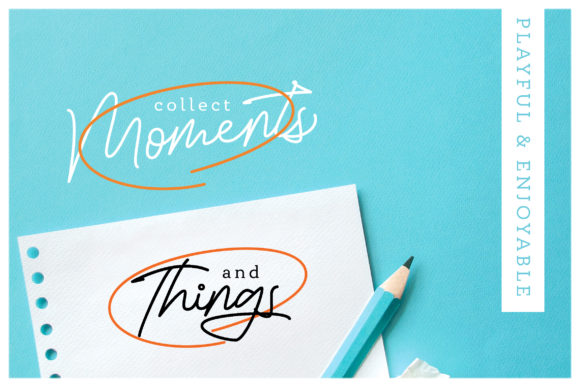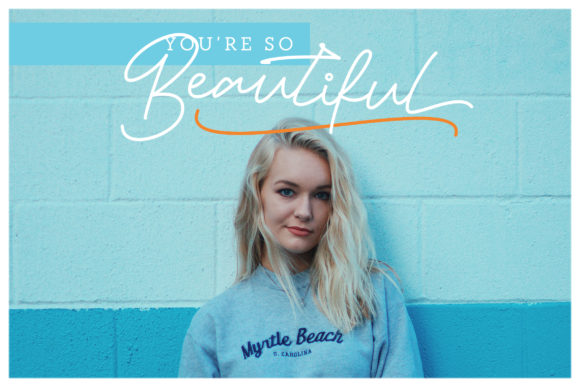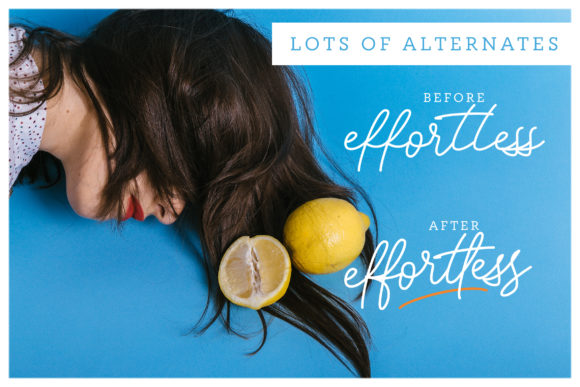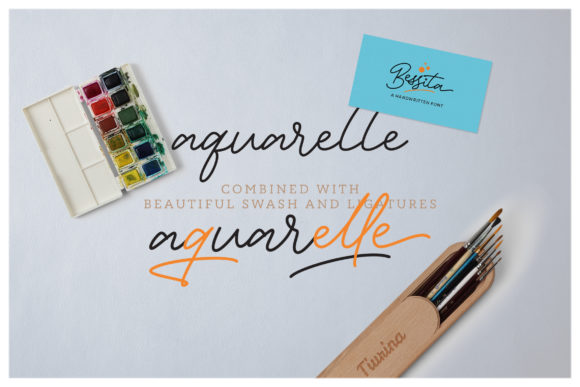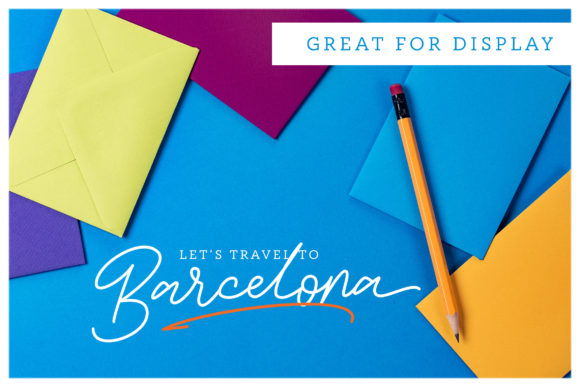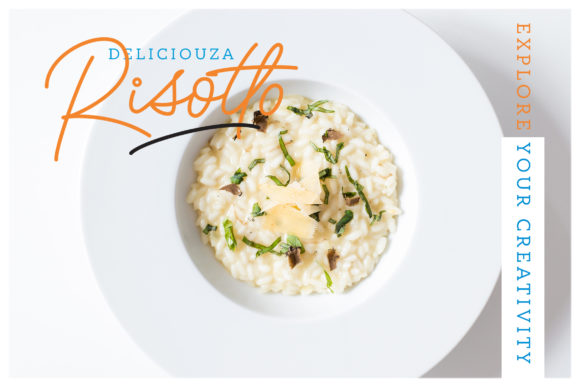
Unleash the Elegance of Your Designs with Bessita Font
Have you ever found yourself scribbling down ideas in a notebook, only to realize that the simple act of putting pen to paper sparks a wave of creativity? For designers, this moment is often the starting point for bringing a project to life. As you brainstorm and refine your concept, you begin to envision the perfect font to complement your vision.
Enter the Bessita Font, a timeless and sophisticated handwriting font that adds a touch of elegance to any design. With its classic style, the Bessita Font is perfect for logos, letterheads, posters, apparel, labels, and more. Whether you’re creating a new brand identity or refining an existing one, this versatile font is a valuable addition to your design toolkit.
Bessita Font Key Features
- Font Style: Script, Calligraphy
- Unique Characteristics: Elegant, cursive, and highly decorative, Bessita is perfect for adding a touch of sophistication and whimsy to your designs.
Bessita Font Review
Bessita Font is a beautiful script font that is perfect for creating elegant and sophisticated designs. ✨ The flowing lines and subtle flourishes give it a unique, handwritten feel that is sure to catch the eye. It’s ideal for invitations, wedding stationery, and other special occasion designs where you want to add a touch of luxury.
One of the things that stands out about Bessita Font is its versatility. ✨ It comes in a range of weights and styles, from light and delicate to bold and dramatic, making it easy to use in a variety of design contexts. The font is also highly legible, even at small sizes, which is a major plus for designers who need to ensure their text is easily readable.
- ⚠️ Limited language support, making it less suitable for multilingual designs
- ⚠️ May not be the best choice for designs that require a strong, bold font
Overall, I’m impressed with Bessita Font. It’s a beautiful, versatile font that is perfect for designers looking to add a touch of elegance to their designs. While it may have some limitations, its unique look and feel make it a standout choice in the world of script fonts.
To get the most out of Bessita Font, use it in conjunction with bold or italic styles to add emphasis to your text. You can also experiment with different font sizes to create visual interest. For best results, pair Bessita Font with a clean and simple design aesthetic.
Bessita Font is ideal for use in wedding invitations, baby shower invitations, and other celebratory events. It’s also suitable for use in branding and marketing materials, particularly for businesses in the fashion or beauty industry.